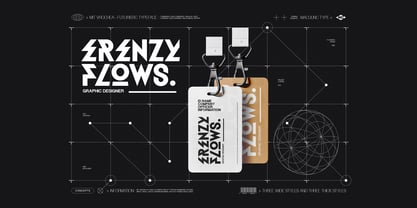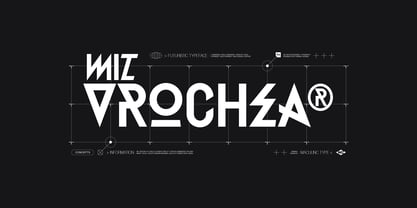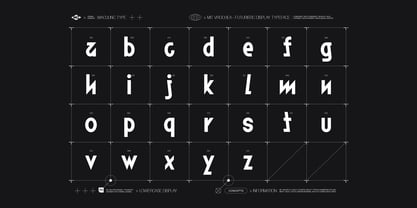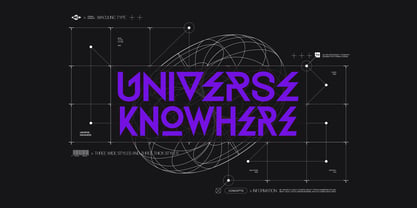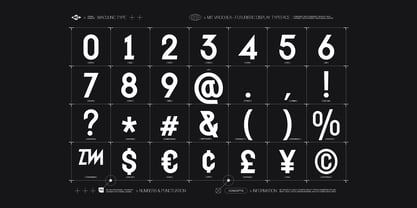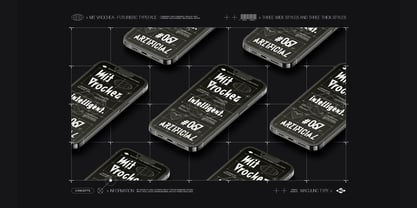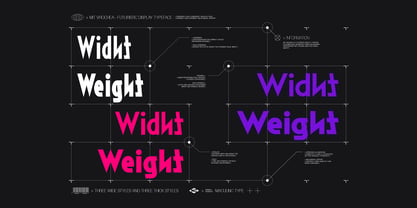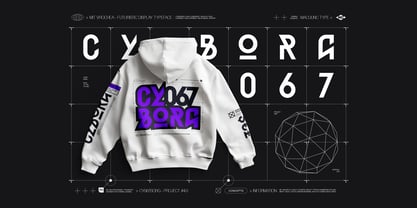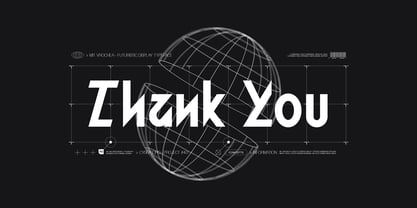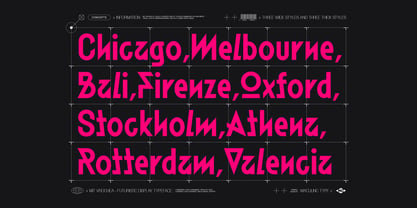
MIT Vrochea
by Maculinc
The MIT Vrochea Font Family was designed by Lukmanul Khikmatullah and published by Maculinc. MIT Vrochea contains 4 styles. More about this family
MIT Vrochea is a futuristic display typeface featuring bold geometric forms and modern proportions for a strong, high-tech visual identity. Perfect for logos, branding, posters, gaming, esports, sci-fi, technology, and digital media.
With six versatile styles—Condensed, Bold Condensed, Regular, Bold, Expanded, and Bold Expanded—it offers the flexibility to create everything from compact layouts to bold, attention-grabbing headlines. Each style is designed to work seamlessly together for dynamic and consistent typography.
Featuring uppercase, lowercase, numbers, punctuation, symbols, and multilingual support, MIT Vrochea is a complete font family for creating modern, impactful, and professional designs.
Styles Included :
Condensed – Slim proportions for compact layouts and modern headlines.
Bold Condensed – Narrow with extra weight for stronger visual impact.
Regular – Balanced width and weight for versatile display applications.
Bold – Thick and powerful for bold headlines and branding.
Expanded – Wider proportions for a spacious, futuristic appearance.
Bold Expanded – Extra-wide and bold for maximum impact and standout designs.
MIT Vrochea combines six versatile styles with complete character support, making it the perfect choice for creating modern, futuristic, and professional designs that stand out.
Designers: Lukmanul Khikmatullah
Foundry: Maculinc